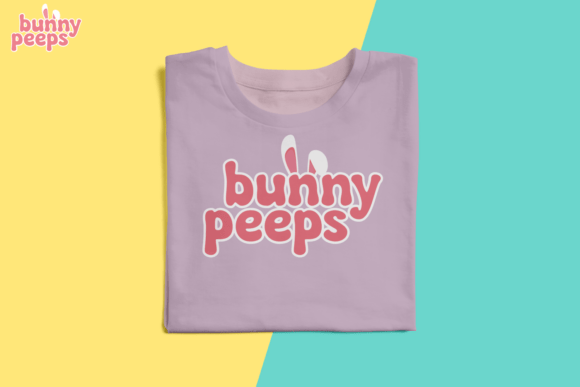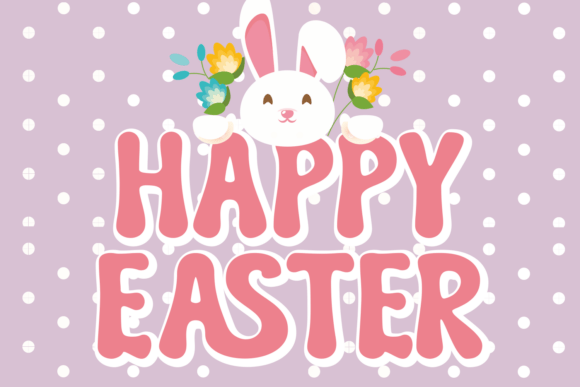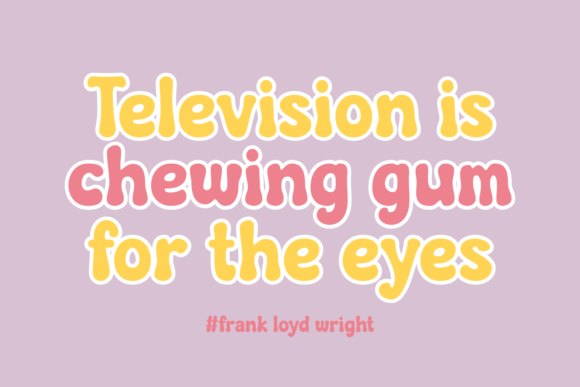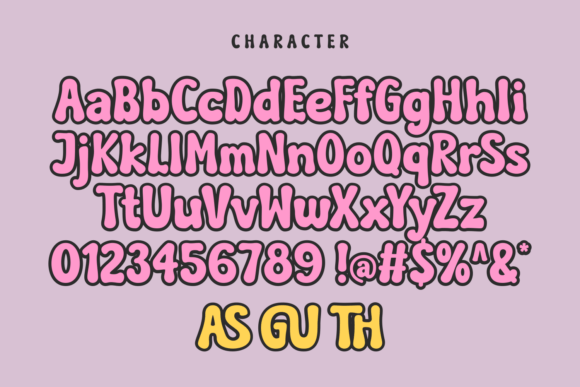
Introduction to Easter Gum Font
Easter Gum is a playful and squishy display font that brings a cheerful vibe to any design.
Inspired by the fun of bubble gum and the bright joy of spring, its hand-drawn look and rounded letterforms make it a perfect choice for kids’ products, Easter events, branding, social media graphics, and craft projects .